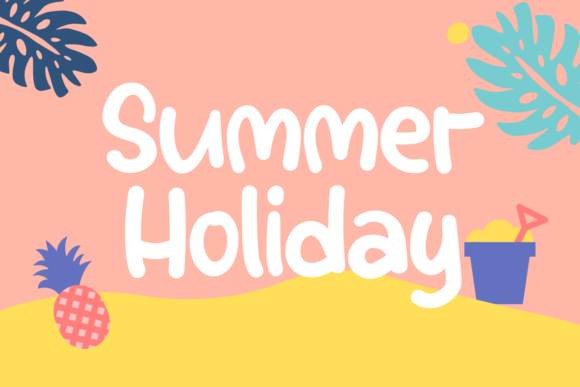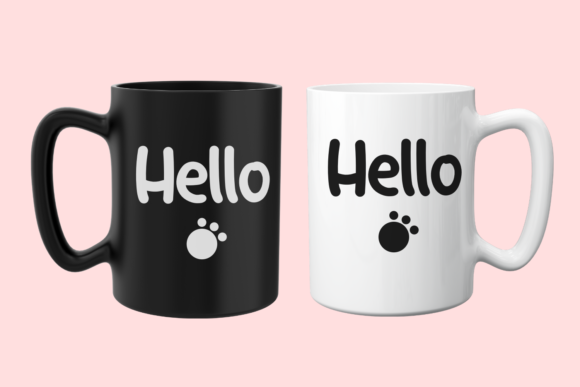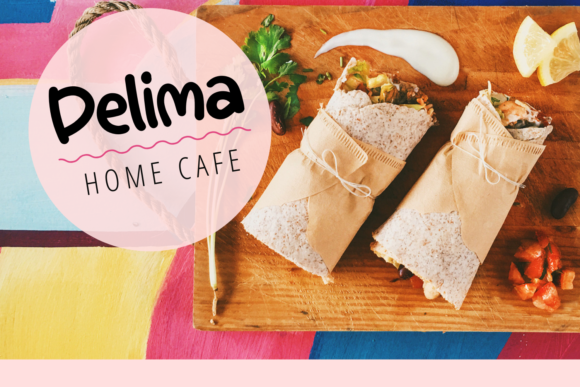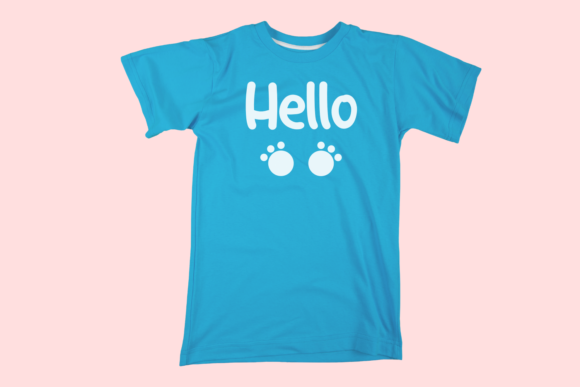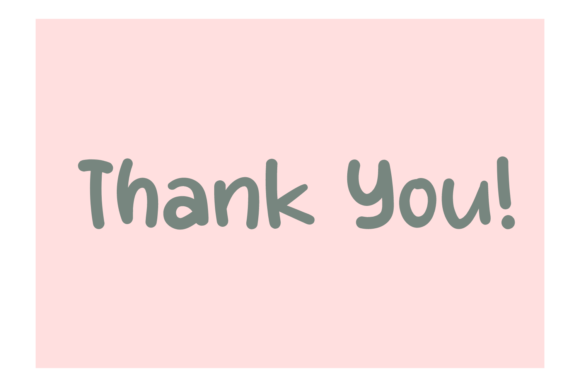
Cute Panda Font: Add a Playful Touch to Your Creative Projects
Are you looking for a font that can add a dash of playfulness and whimsy to your creative projects? Look no further than the Cute Panda Font! This fun handwritten font is perfect for designers and crafters who want to infuse their work with a sense of fun and personality.
What is Cute Panda Font?
Cute Panda is a fun handwritten font that is designed to bring a smile to your face. Its playful and carefree nature makes it perfect for a wide range of creative projects, from inspirational wall posters to branding and marketing materials. Whether you’re a designer, crafter, or DIY enthusiast, Cute Panda Font is sure to delight.
Characteristics of Cute Panda Font
So, what makes Cute Panda Font so special? Here are just a few of its key characteristics:
- Playful and whimsical: Cute Panda Font is designed to be fun and playful, with a carefree nature that is sure to bring a smile to your face.
- Handwritten: This font is handwritten, giving it a personal and organic feel that is perfect for creative projects.
- Versatile: Cute Panda Font can be used for a wide range of projects, from posters and flyers to social media graphics and branding materials.
- Easy to read: Despite its playful nature, Cute Panda Font is easy to read, making it perfect for use in both digital and print materials.
Uses for Cute Panda Font
So, what can you use Cute Panda Font for? The possibilities are endless! Here are just a few ideas to get you started:
- Inspirational wall posters: Use Cute Panda Font to create motivational and uplifting posters that are sure to inspire.
- Branding and marketing materials: Add a playful touch to your branding and marketing materials, such as business cards, brochures, and social media graphics.
- Crafting projects: Use Cute Panda Font to add a personal touch to your crafting projects, such as scrapbooking, card making, and DIY gifts.
- Digital graphics: Use Cute Panda Font to create fun and playful digital graphics, such as blog headers, social media posts, and email newsletters.
Tips for Using Cute Panda Font
Here are a few tips for getting the most out of Cute Panda Font:
- Use it sparingly: While Cute Panda Font is playful and fun, it can be overwhelming if used too much. Use it sparingly to add a touch of whimsy to your designs.
- Pair it with other fonts: Cute Panda Font pairs well with other fonts, such as bold and sans-serif fonts. Experiment with different pairings to find the one that works best for your project.
- Experiment with colors: Cute Panda Font looks great in a variety of colors, from bright and bold to soft and pastel. Experiment with different colors to find the one that works best for your project.
| Font Name | Cute Panda Font |
| Author | Al Ghul |
Cute Panda Font is a fun and playful font that is perfect for designers and crafters who want to add a touch of whimsy to their creative projects. With its handwritten nature and versatile characteristics, it’s sure to delight. Whether you’re creating inspirational wall posters, branding and marketing materials, or crafting projects, Cute Panda Font is sure to bring a smile to your face. So why not give it a try and see what kind of creative projects you can come up with?